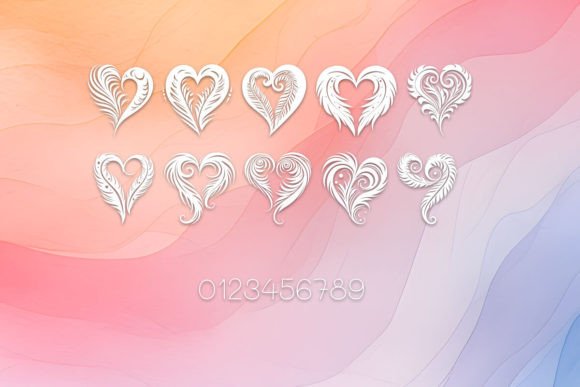
Maori Feathers Heart Font
Introducing our captivating ‘Maori Feathers Heart’ Dingbats Fonts – a fusion of cultural elegance and heartfelt symbolism. This digital collection offers 26 uppercase letters and a full set of numbers 0-9, each intricately designed with Maori-inspired feathers and heart motifs. Infuse your designs with the rich heritage of Maori culture, adding a touch of emotional depth to your digital projects. Elevate your messages with the grace of feathers and the warmth of hearts. Embrace the cultural narrative and creativity with these unique dingbats fonts, where tradition meets heartfelt